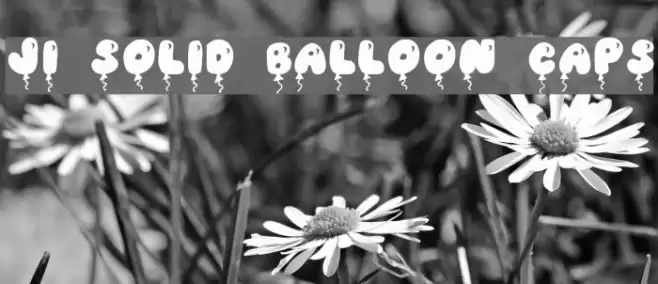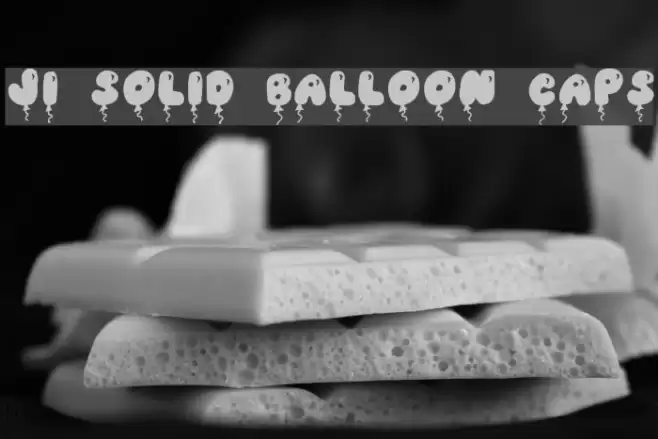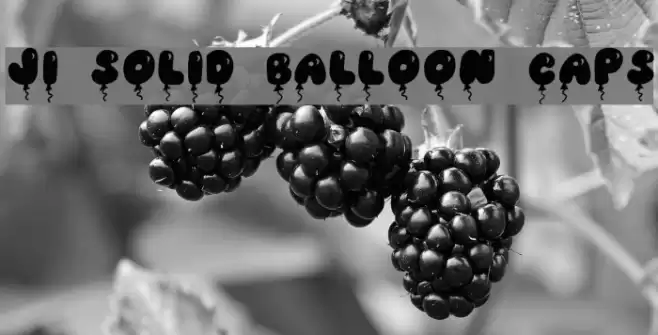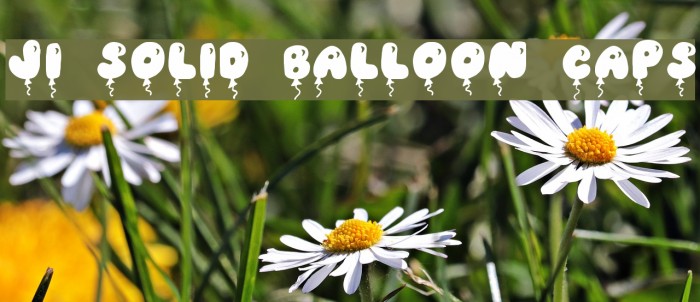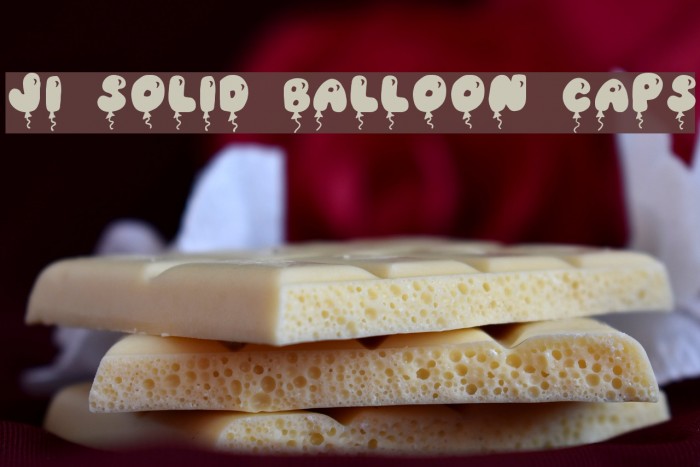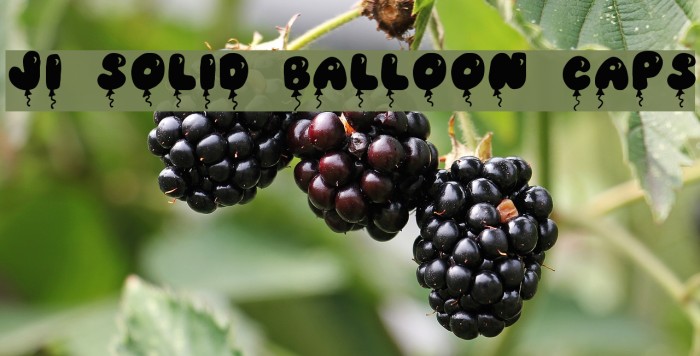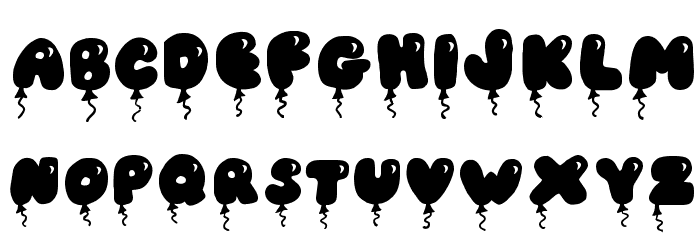
JI Solid Balloon Caps Font
JI Solid Balloon Caps Description
This playful and whimsical font features characters designed to resemble balloons, complete with strings hanging from the bottom. Each letter is bold and rounded, giving a sense of fun and celebration. The characters are uniformly black, creating a strong visual impact. The design is consistent across all letters, maintaining the balloon theme with slight variations in the string shapes. This font is perfect for festive occasions, children's parties, or any event that calls for a lighthearted and joyful aesthetic.
A playful, balloon-themed font with bold, rounded characters and decorative strings from Cartoon fonts.
- Proposed Projects: Ideal for birthday invitations, children's party decorations, festive banners, and playful branding.
- Overall Style: Playful, Festive
- Use Case: Headlines, Logos, Invitations